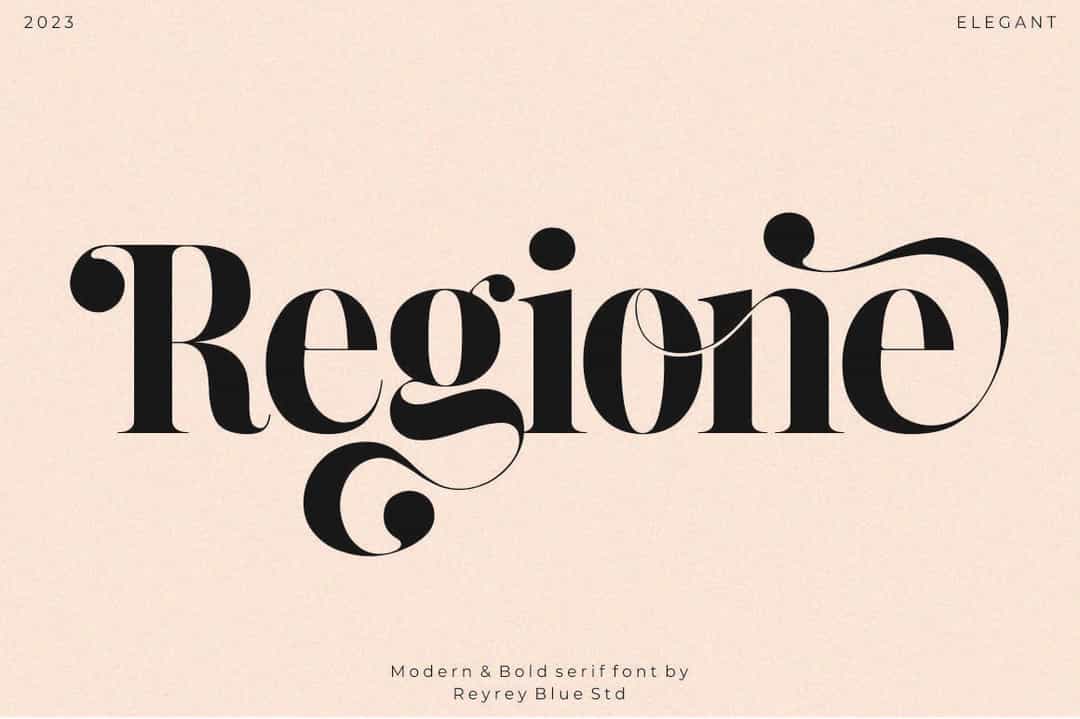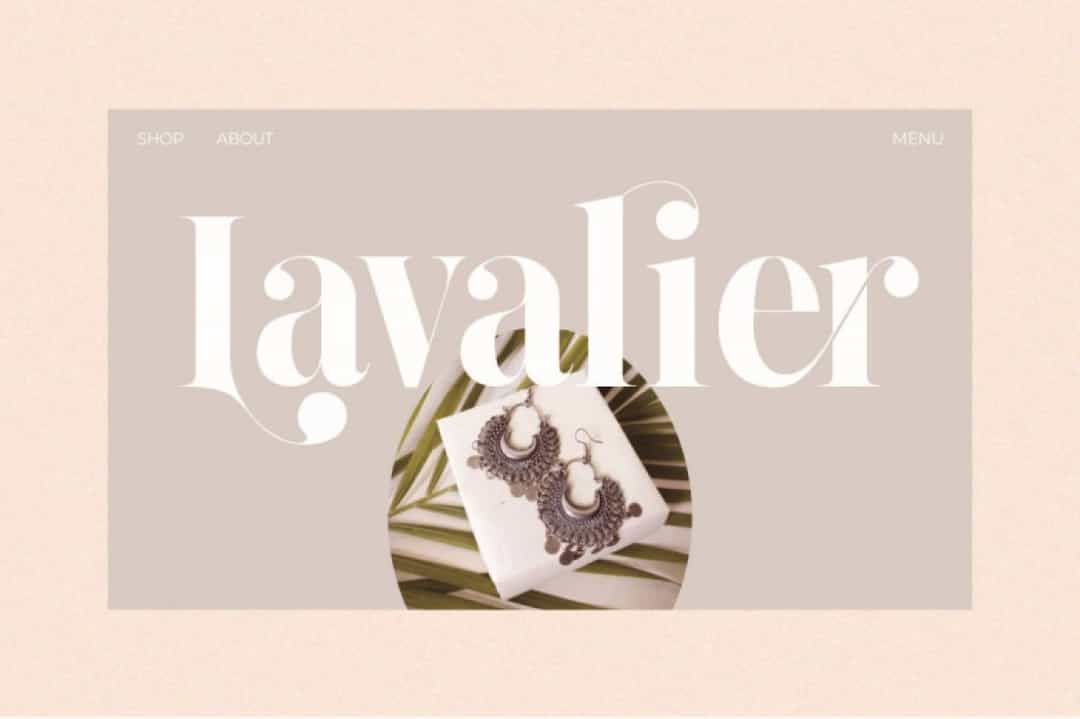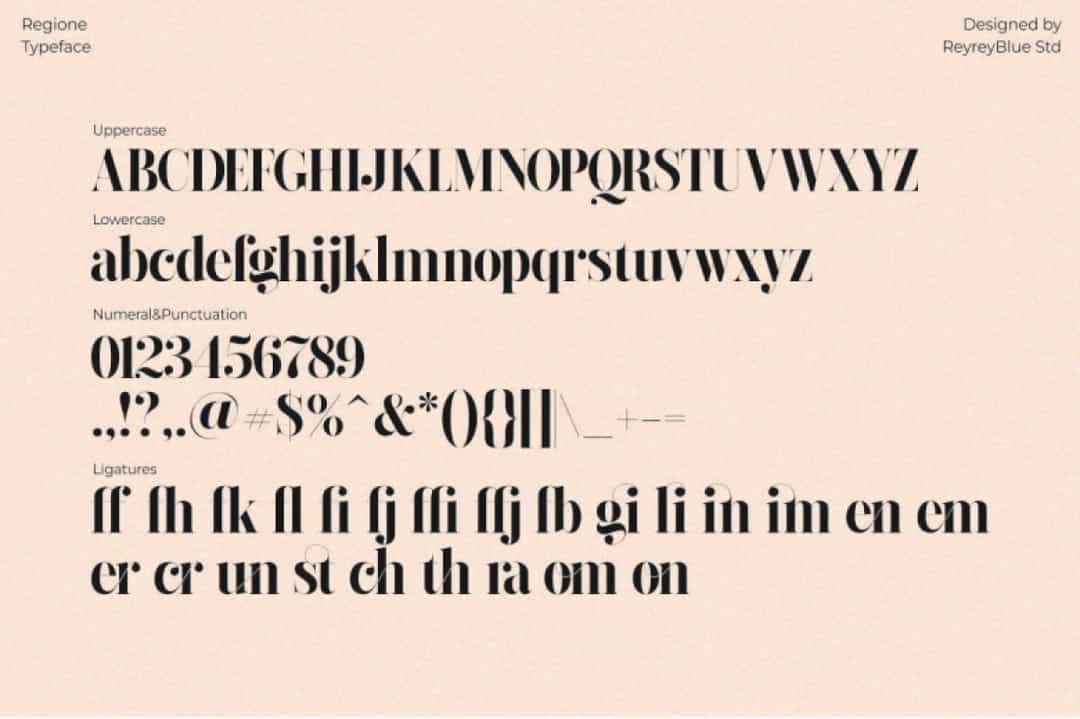
Regione Typeface is an exquisite serif typeface designed to bring timeless beauty and aesthetic value. With various stylish options available to users, Regione showcases uniqueness. To enhance creativity further, this font also comes equipped with discretionary and standard ligatures that add an air of sophistication to your writing.